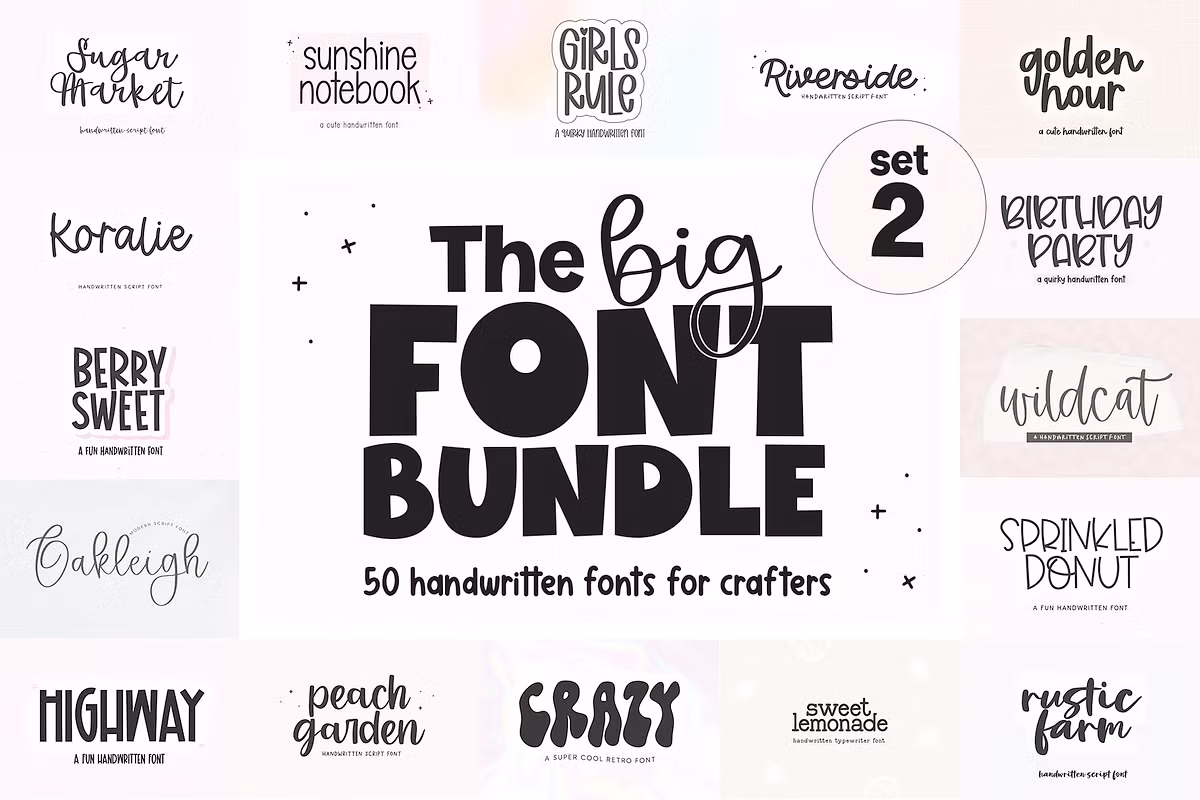
BIG Font Bundle | PART 2 Free Download is a massive collection of high-quality fonts designed to elevate any creative project. With a diverse mix of serifs, sans-serifs, scripts, and display styles, this bundle is perfect for branding, packaging, posters, and web design. Please note that you must purchase this font for commercial use, but it is available as a free download for testing purposes. Whether you're a seasoned designer or just starting out, BIG Font Bundle | PART 2 Free Download offers incredible variety and value to enhance your typography library.